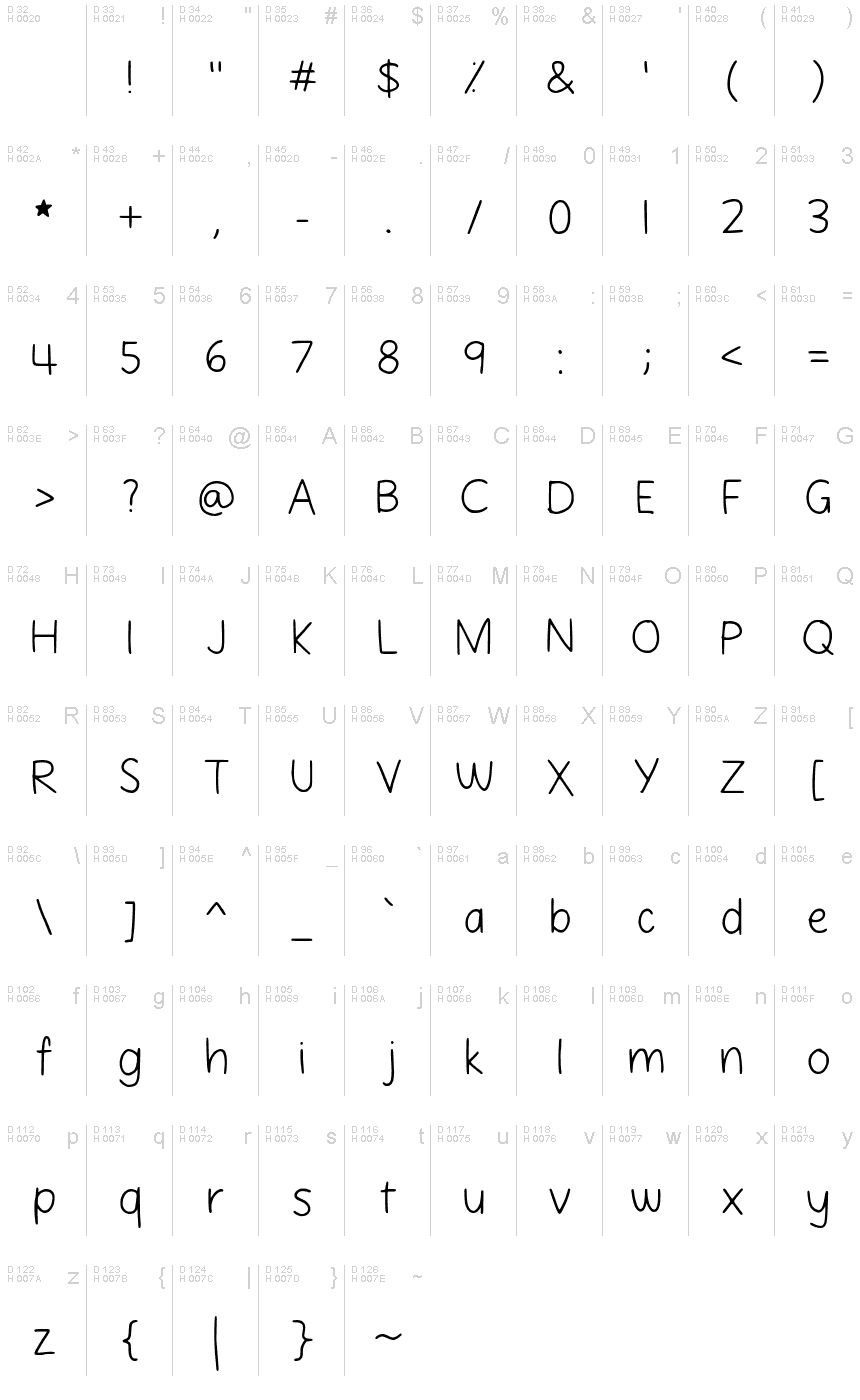
Cherry Hand Regular
Cherry Hand is a charming and playful semi-light handwritten font designed by Jazmin Mendez. Perfect for projects that require a touch of whimsy, Cherry Hand is suitable for anything from greeting cards to children's books. Its delicate strokes and imperfect edges add character to any piece of text, making it ideal for invitations, posters, and social media graphics. Whether you're designing a logo or creating a wedding invitation, Cherry Hand's unique style will make your project stand out. This delightful typeface is sure to bring joy and personality to any design project you undertake!